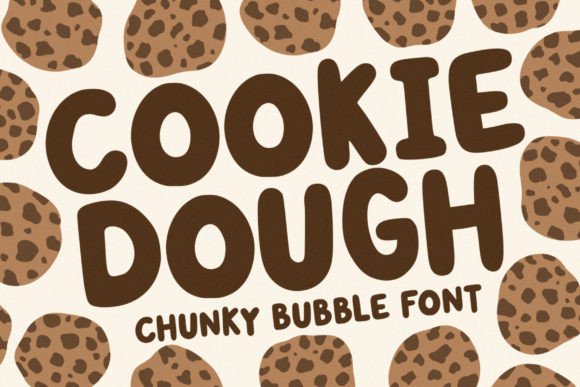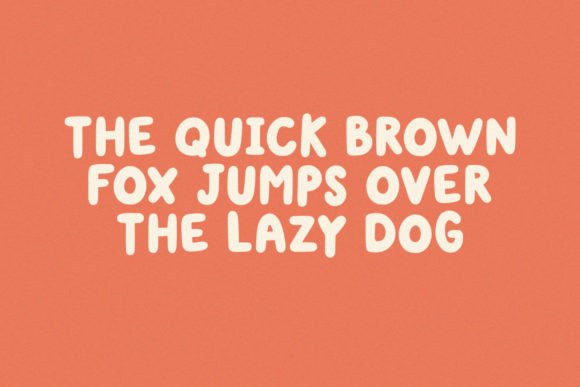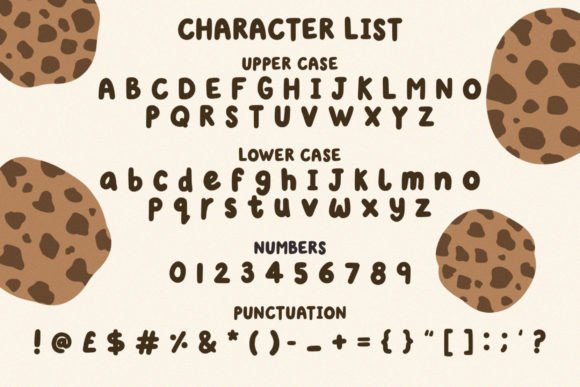
Cookie Dough Font: A Cute & Playful Display Font for DIY Crafts!
About the Cookie Dough Font
Let us introduce you to Cookie Dough Font, where timeless design meets modern craftsmanship. Cookie Dough is a round bubble typeface perfect for any fun quirky design work! This font can be used for anything such as T-shirt designs, phone cases, greeting cards, invitations, mugs and so much more! Get creative!
Cookie Dough’s playful roundness makes it ideal for headlines, short bursts of text on packaging, and branding for children’s products or playful brands. It works exceptionally well in projects emphasizing fun and approachability. However, its low x-height and informal style make it unsuitable for body text or UI elements requiring high readability.
For a balanced design, pair Cookie Dough with a clean sans-serif like Open Sans for body text, providing a contrast of formality and playfulness. Alternatively, a more geometric sans-serif such as Montserrat adds a touch of modern sophistication, tempering the font’s inherent whimsy.
Cookie Dough’s overall personality is undeniably cheerful and friendly, making it perfect for projects needing a lighthearted and approachable aesthetic. Avoid using it for projects requiring seriousness or elegance.
Cookie Dough Font Usage Examples
Cookie Dough Font Example